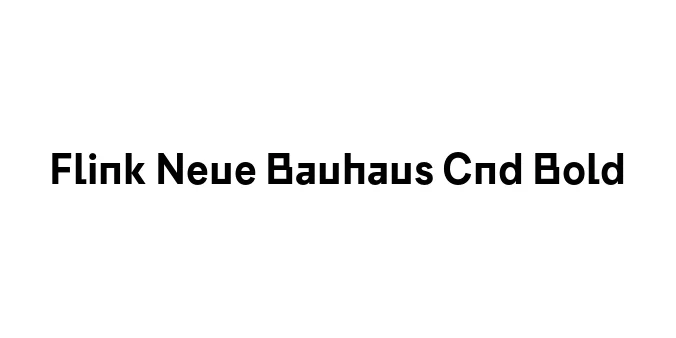
Flink Neue Bauhaus Cnd Bold
Designed by Nils Thomsen, Jakob Runge
Flink Neue Bauhaus Cnd Bold is a sophisticated evolution of the geometric sans-serif tradition, deeply rooted in the functionalist principles of the Bauhaus movement. This specific condensed bold variant is designed to maximize visual impact within tight horizontal constraints, providing a robust and authoritative presence that maintains the clarity and mathematical precision associated with modernist design.
Developed by the TypeMates type foundry, the Flink Neue family focuses on clean lines and a harmonious balance between circles and straight edges. The Condensed Bold weight is especially suited for contemporary editorial environments and digital interfaces where space is a premium, offering a sleek, architectural aesthetic that communicates both strength and professional elegance.
Flink Neue Bauhaus Cnd Bold Best Uses
Perfect for high-impact, space-saving titles in magazines and posters.
Ideal for tech-focused or architectural corporate identities.
Excellent for sidebar text and strong typographic hierarchies in layout design.
Great for bold hero sections and striking calls to action.